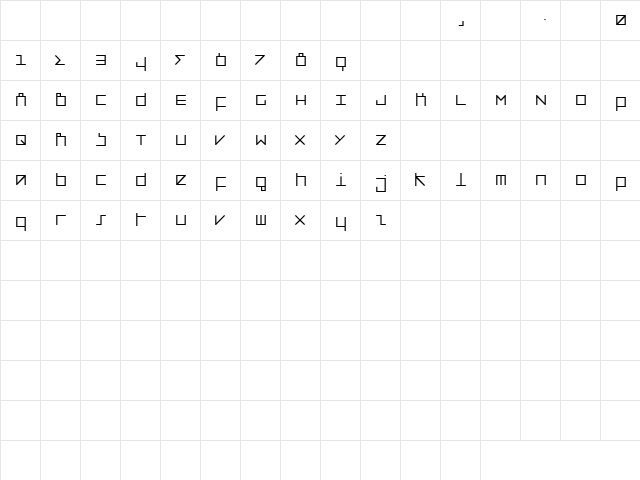
Mod Quad S Ligh
Design Context for Mod Quad S Typeface
Mod Quad S offers clean, dependable letterforms without strong stylistic allegiance, making it a practical choice for designers who need flexibility.